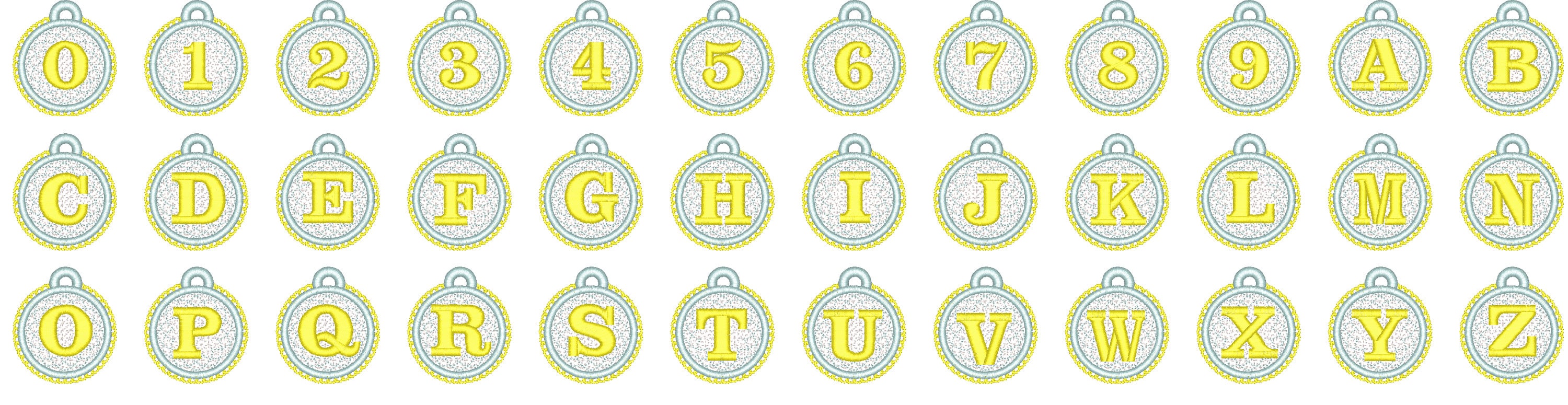
Lace Circle Font Monogram delicate FSL freestanding lace Hanging Monogram personalized gift tag initial letters machine embroidery designs
Uppercase A-Z and numbers
Freestanding lace! The letters are stitched onto a non-woven water-soluble stabilizer.